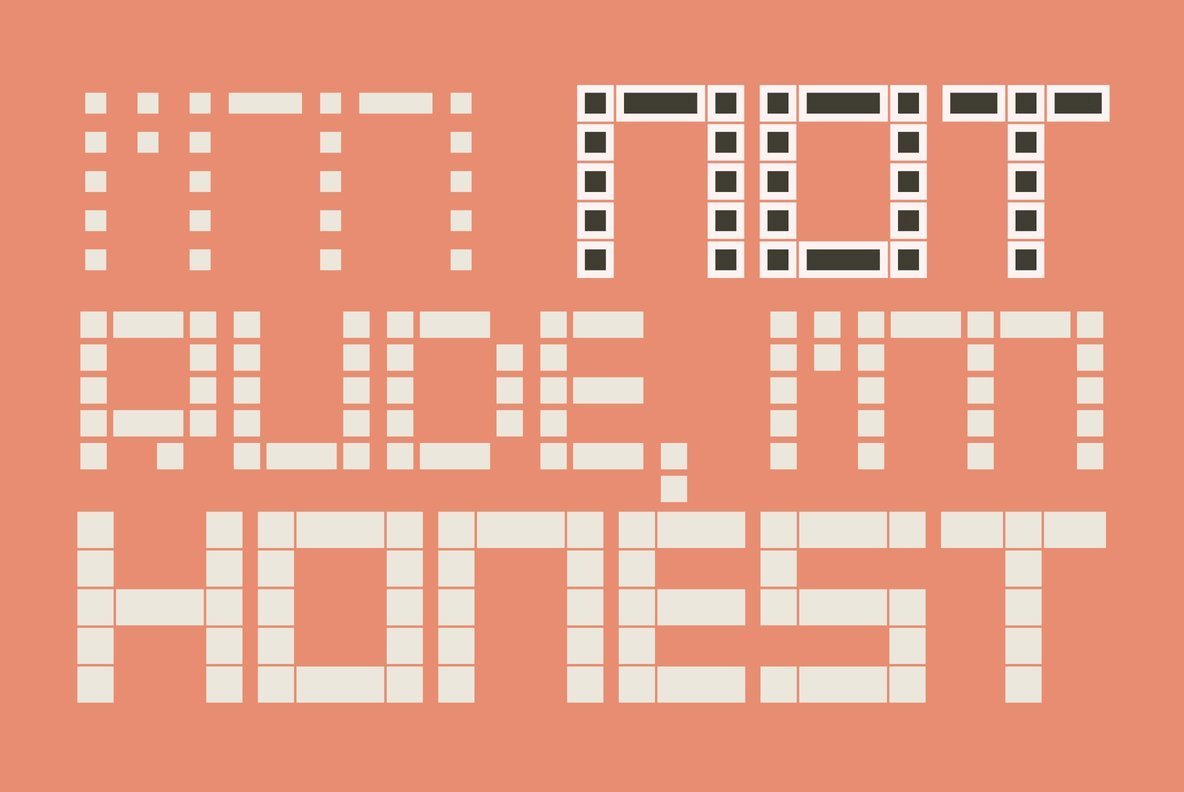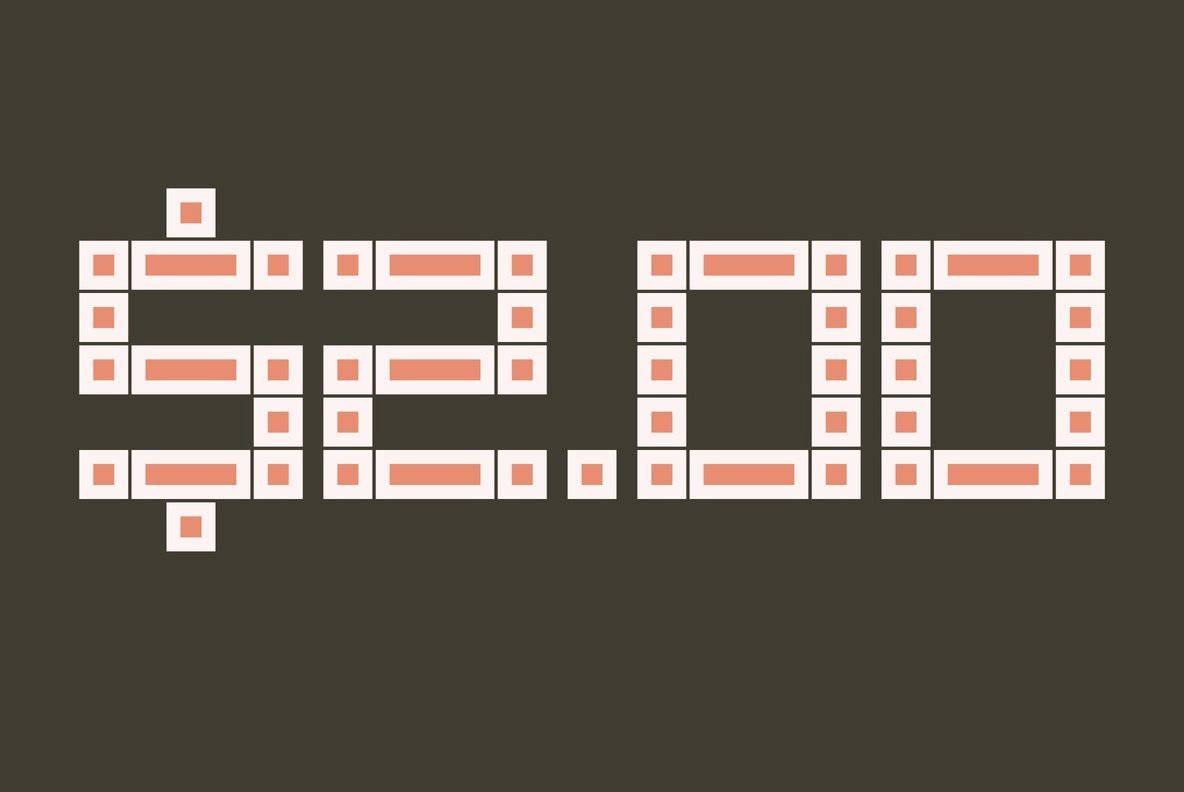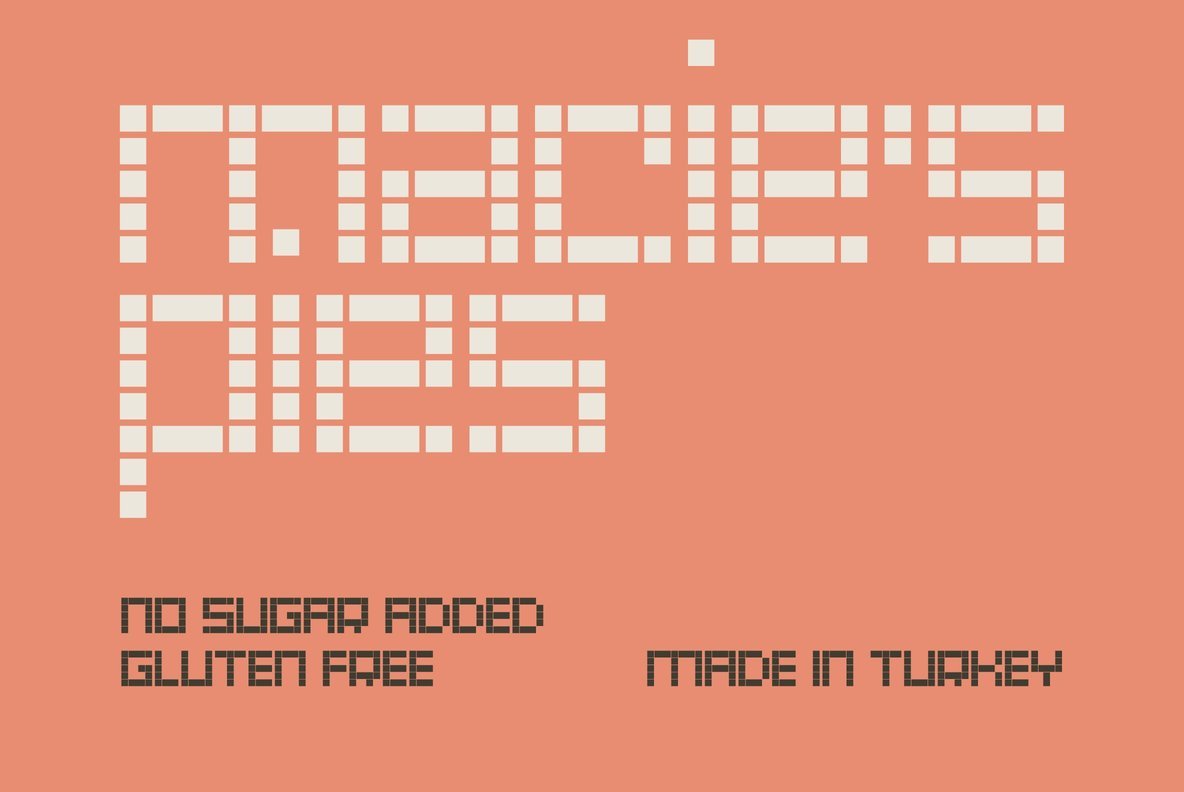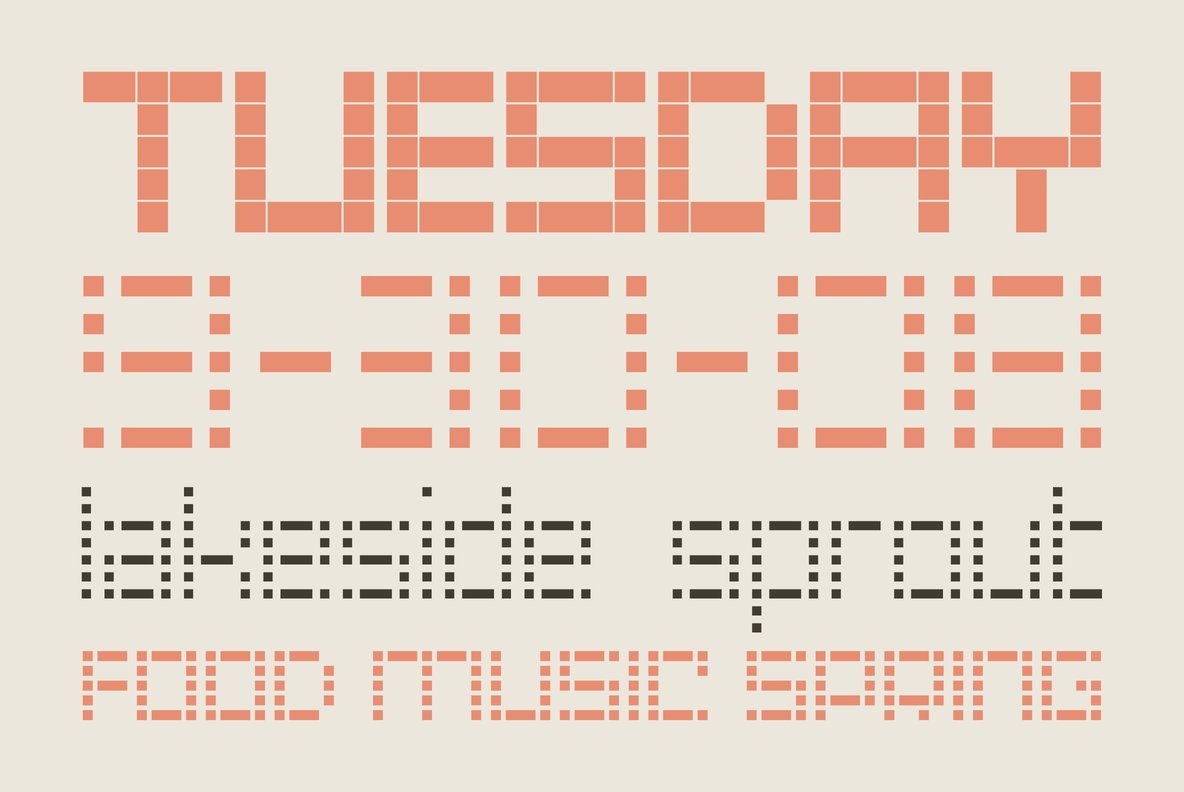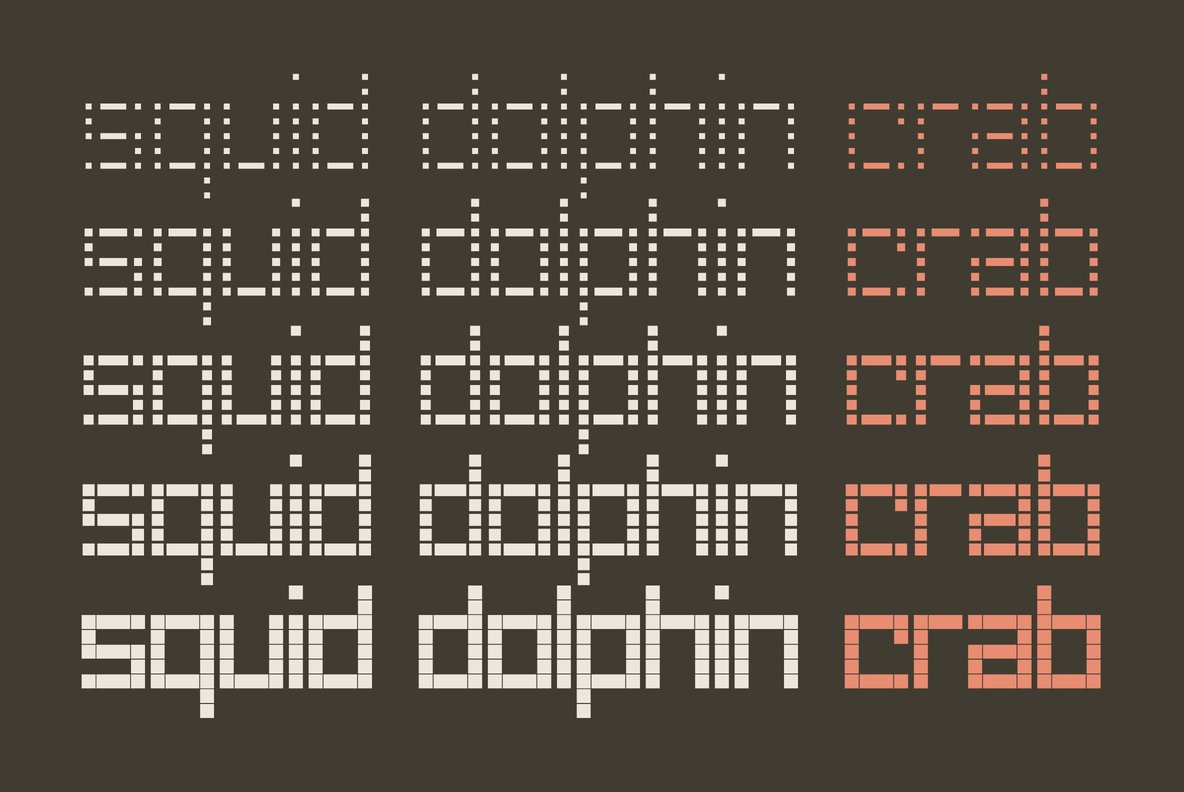
YWFT LED
Foundry: YouWorkForThem
Defying convention and bringing a new versatility to the pixel genre is YWFT LED, a unique, bitmap-styled typeface that certainly won't go over like a lead balloon. Use the Light weight to create a very fashionable, soft visual approach, or flip the spectrum to the ExtraBold weight for a more tech, fat and heavy pixel approach. YWFT LED works great either as aliased or anti-aliased text in your project. YWFT LED was converted to Opentype format in 2010. Designed exclusively by Michael Cina and YouWorkForThem.